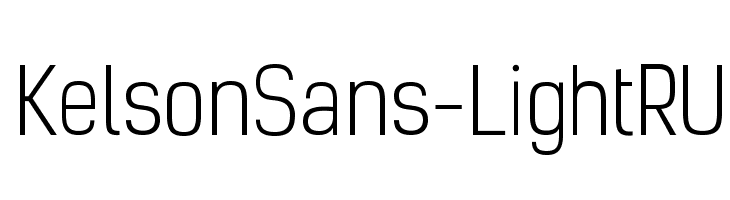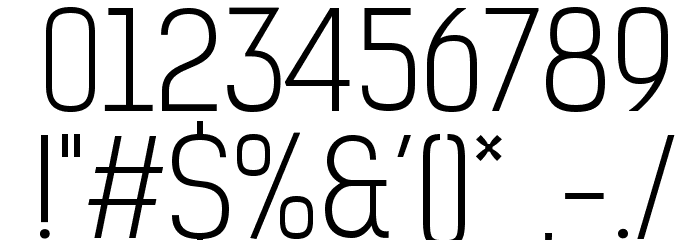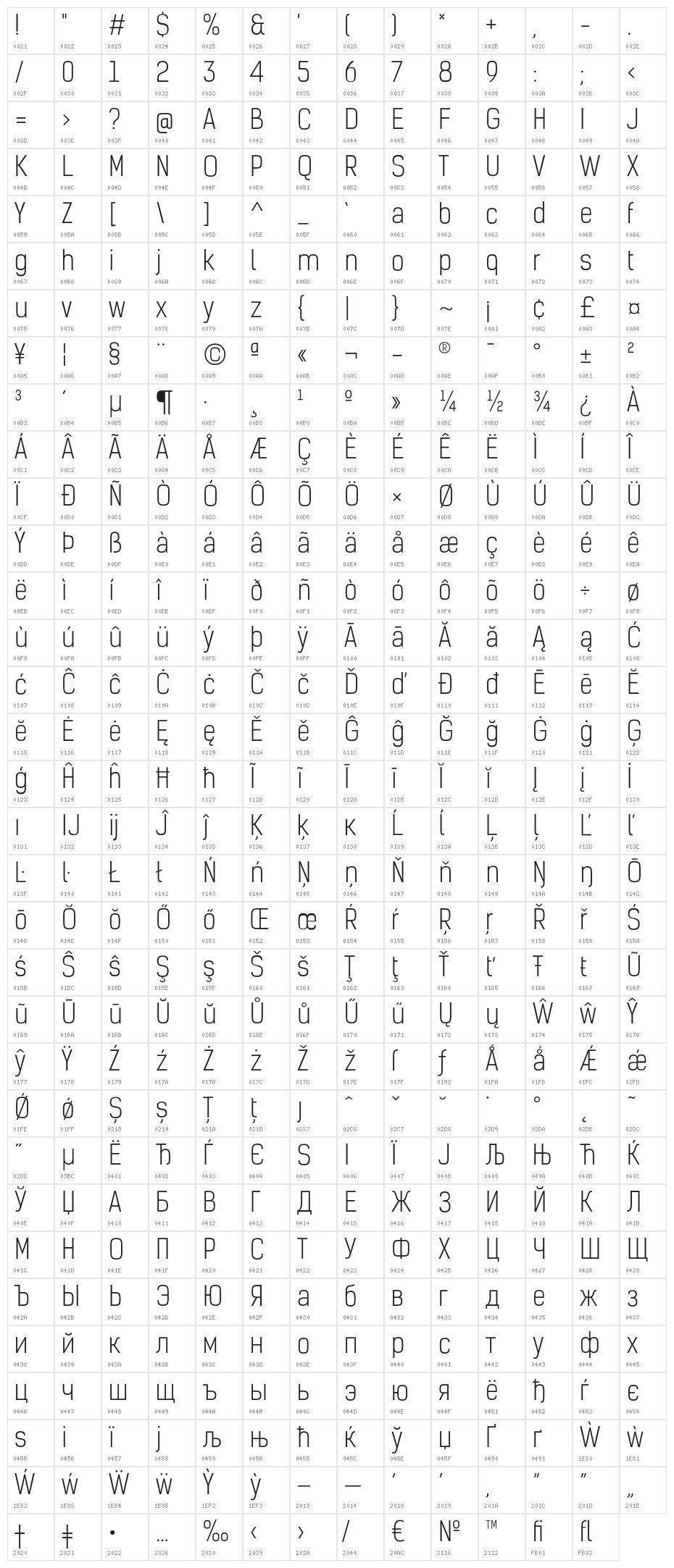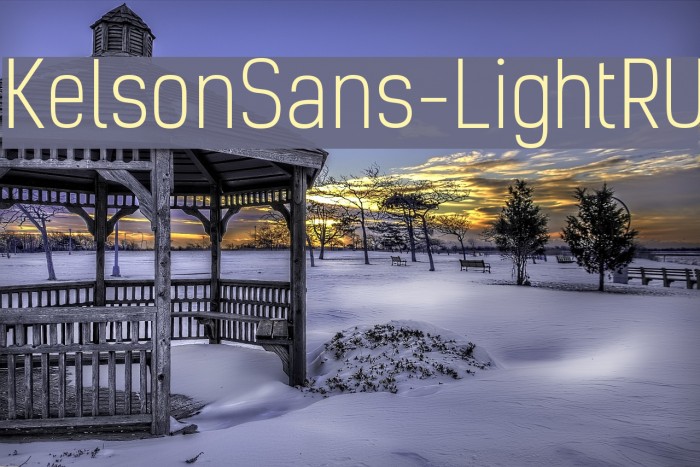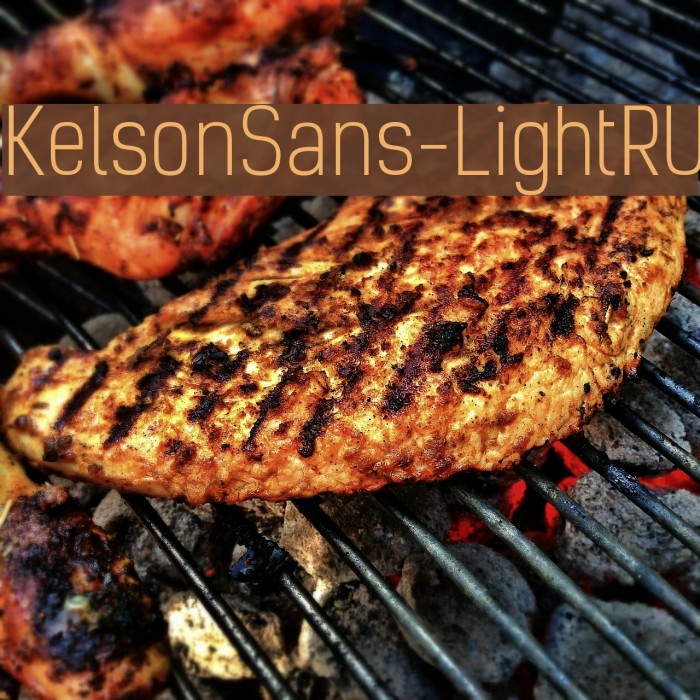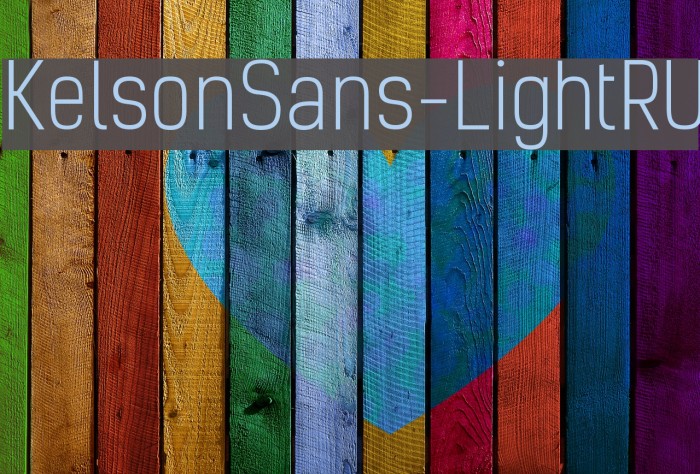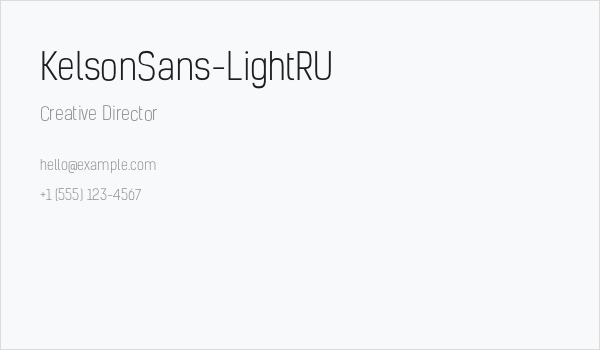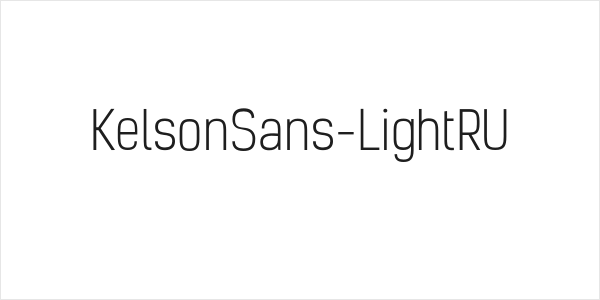
KelsonSans-LightRU Font
KelsonSans-LightRU Description
This font features a clean and modern sans-serif design with a light weight, making it ideal for a wide range of applications. The characters are well-proportioned with a consistent stroke width, providing a harmonious and balanced appearance. The uppercase and lowercase letters are distinct and easy to read, while the numerals and special characters maintain the same clarity and simplicity. The overall style is minimalistic, with a focus on functionality and readability, making it suitable for both digital and print media.
| Proposed Projects | Ideal for web design, corporate branding, editorial layouts, and user interfaces. |